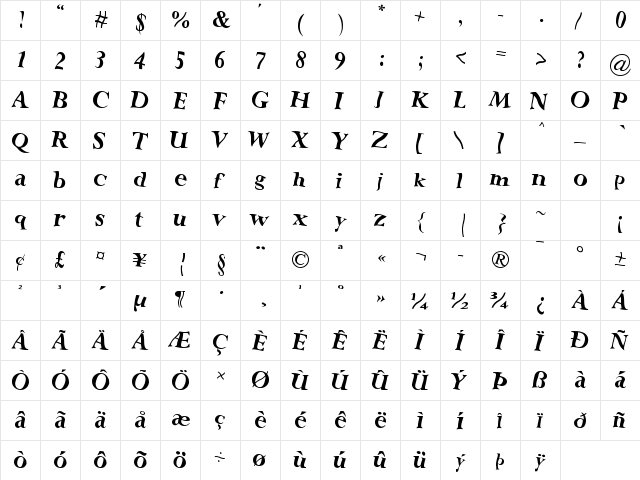
Rochester Twee Regular
| Designer | Luz Collioud |
Design Context for Rochester Twee Typeface
Rochester Twee is a composed and adaptable typeface that performs quietly and consistently across a wide range of design contexts.
Pro Tip: Pair Rochester Twee with a font of contrasting weight or personality to build a more expressive typographic hierarchy.